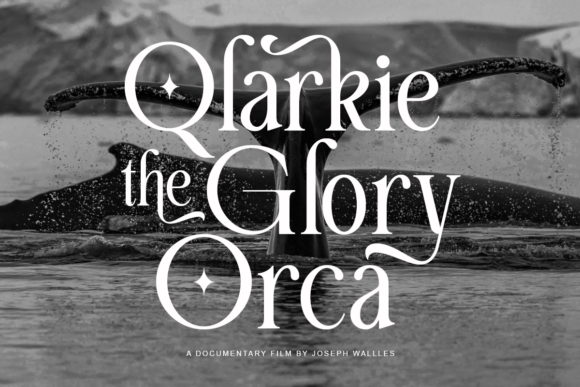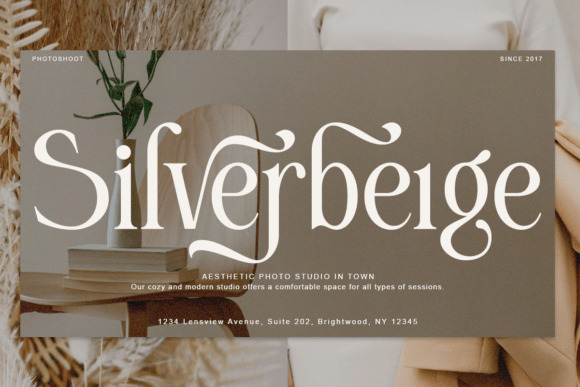
Carely Orches Font
Carely Orhes is a classy display serif with a lot of style. Perfect for fashion work, magazines, or just classy logo designs. Open up your glyphs panel and explore all the characters!